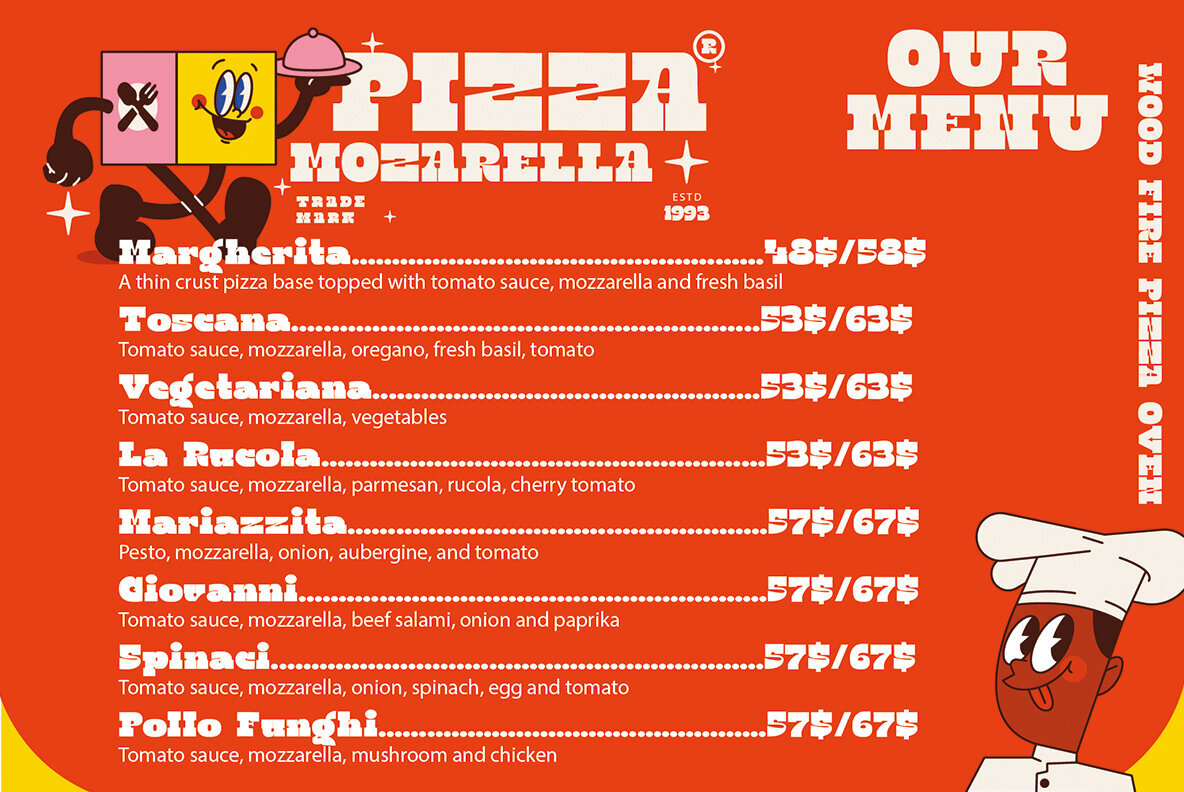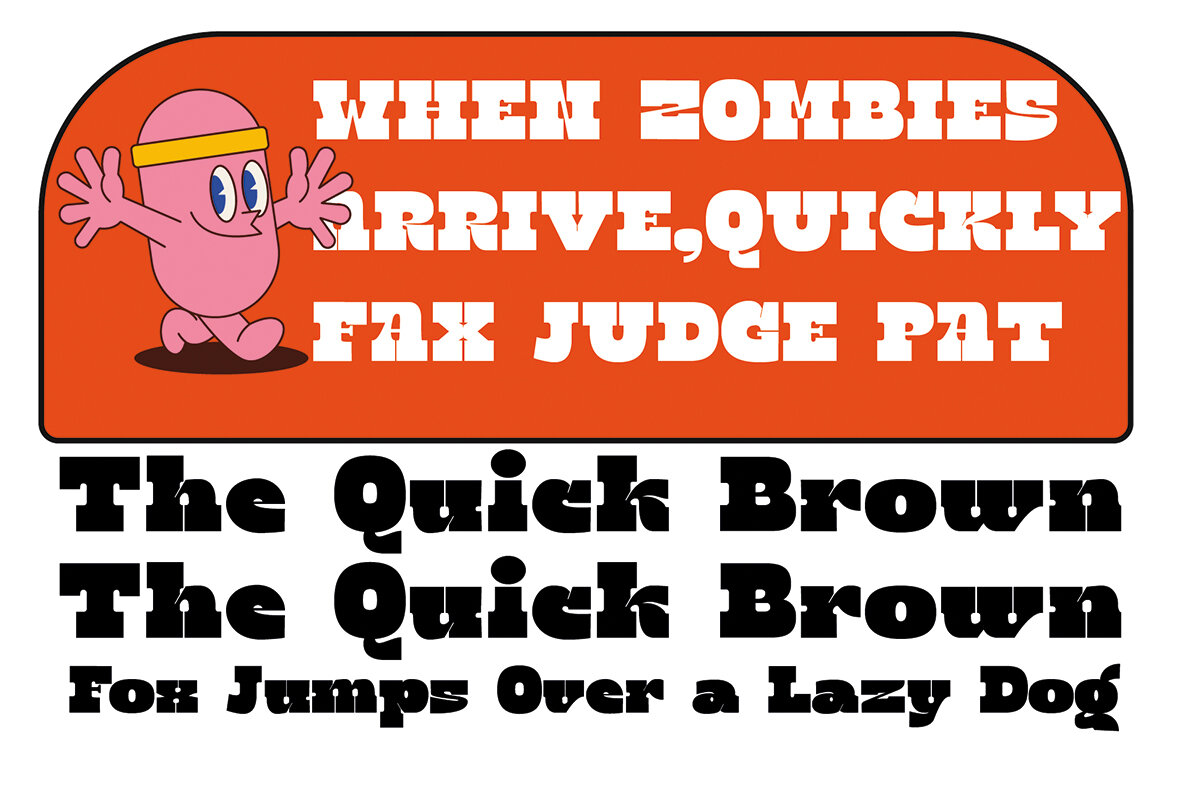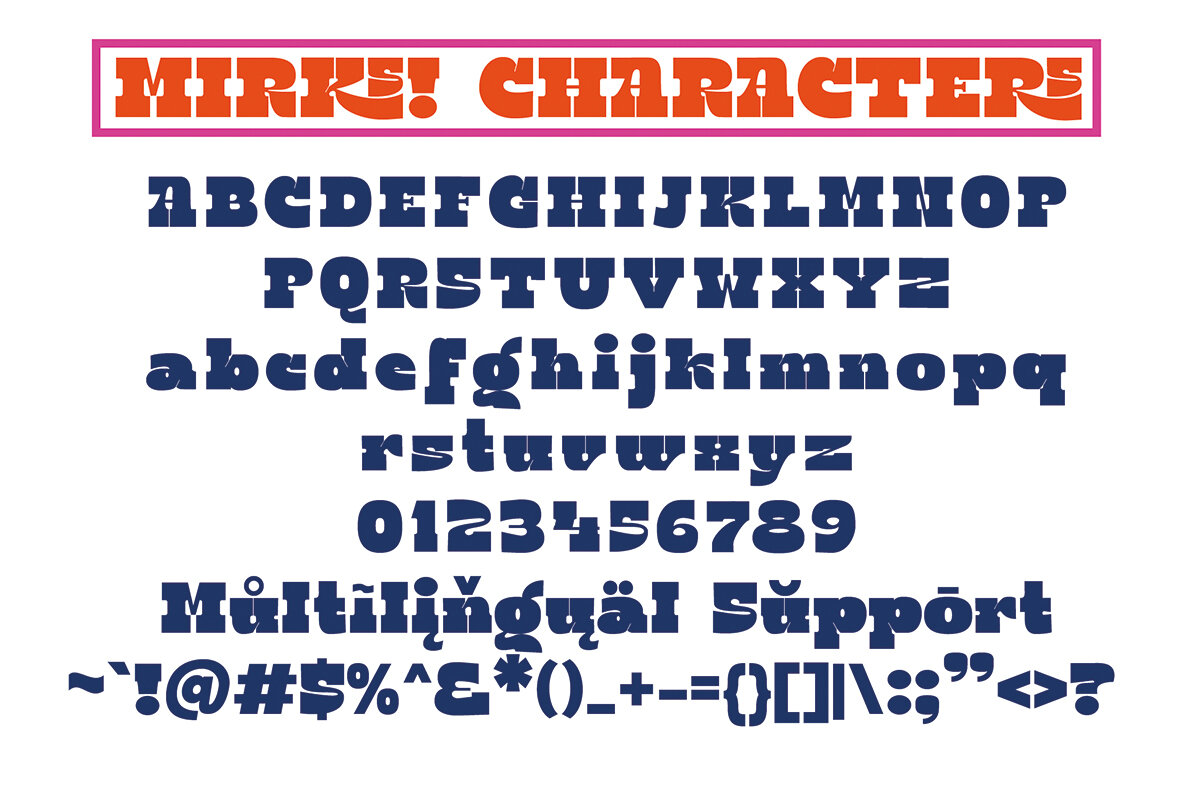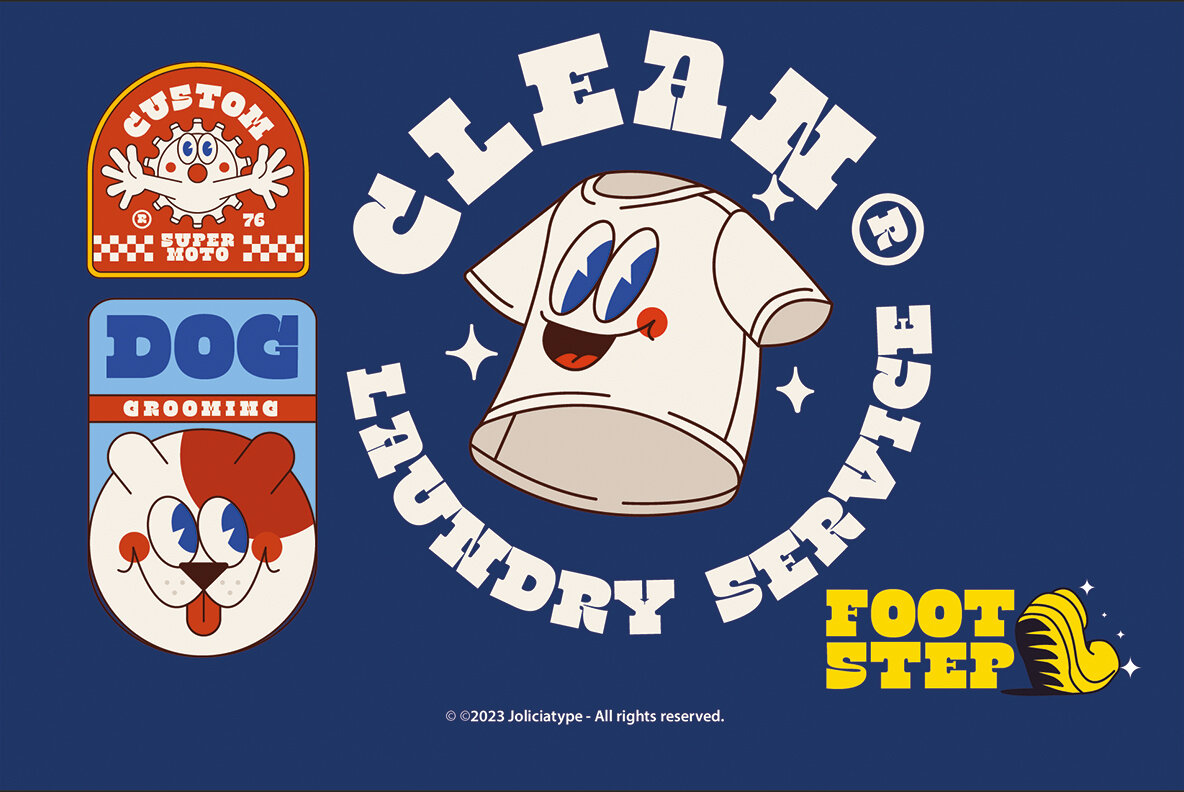
Mirks Font
Mirks Regular
Mirks by Jolicia Type is crafted in an old retro style, offering bold strokes to provide each letter with a striking contrast. This typeface is perfect for making a powerful statement in your typography projects.Mirks: Retro-Inspired Bold Typeface